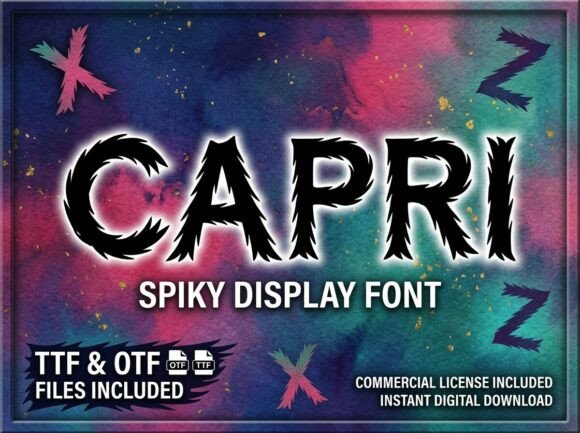
Unleash Your Wild Side with Capri Font: The Ultimate Display Typeface for Bold Designs
Are you looking for a font that embodies a “feral-and-formidable” soul? Look no further than Capri, a high-impact display typeface that’s perfect for designers and crafters who want to make a statement. With its bold, gothic-inspired letterforms and rhythmic, “shaggy” texture, Capri is the premier choice for independent heavy metal branding, winter sports apparel, dark fantasy book covers, and high-impact social media headers.
The Unique Characteristics of Capri Font
Capri font features a unique combination of bold, gothic-inspired letterforms characterized by a rhythmic, “shaggy” texture that mimics jagged fur or frosted pine needles. This texture is contained within a sharp white inline and black outer stroke, giving the font a massive structural weight and aggressive personality. The result is a font that’s both visually striking and attention-grabbing.
Design Inspiration and Applications
Capri font is perfect for designers and crafters who want to create bold, eye-catching designs that stand out from the crowd. Some potential applications for Capri font include:
- Independent heavy metal branding: Capri font is a perfect fit for heavy metal bands who want to create a bold, aggressive brand identity.
- Winter sports apparel: The font’s rugged, snow-inspired texture makes it a great choice for winter sports apparel brands who want to convey a sense of adventure and toughness.
- Dark fantasy book covers: Capri font is a great choice for authors and publishers who want to create dark, ominous book covers that grab readers’ attention.
- High-impact social media headers: Use Capri font to create bold, eye-catching social media headers that stand out from the crowd.
Why Choose Capri Font?
So why choose Capri font over other display typefaces? Here are just a few reasons:
- Unique texture: Capri font’s rhythmic, “shaggy” texture is unlike anything else on the market.
- Bold and aggressive personality: Capri font is perfect for designers and crafters who want to create bold, eye-catching designs that make a statement.
- Versatile: Capri font can be used for a wide range of applications, from heavy metal branding to dark fantasy book covers.
- High-impact: Capri font is designed to grab attention and make a lasting impression.
Tips for Using Capri Font
Here are a few tips for using Capri font in your designs:
- Use it sparingly: Capri font is a bold, attention-grabbing font that’s best used sparingly. Use it for headlines or titles, and pair it with a simpler font for body text.
- Experiment with colors: Capri font looks great in a variety of colors, from bold and bright to dark and muted. Experiment with different colors to find the look that works best for your design.
- Pair it with simple graphics: Capri font pairs well with simple graphics and illustrations. Try pairing it with a bold, graphic image to create a striking design.
Capri font is a high-impact display typeface that’s perfect for designers and crafters who want to make a statement. With its bold, gothic-inspired letterforms and rhythmic, “shaggy” texture, Capri is the premier choice for independent heavy metal branding, winter sports apparel, dark fantasy book covers, and high-impact social media headers. Whether you’re looking to create a bold brand identity or simply want to add some edge to your designs, Capri font is the perfect choice.